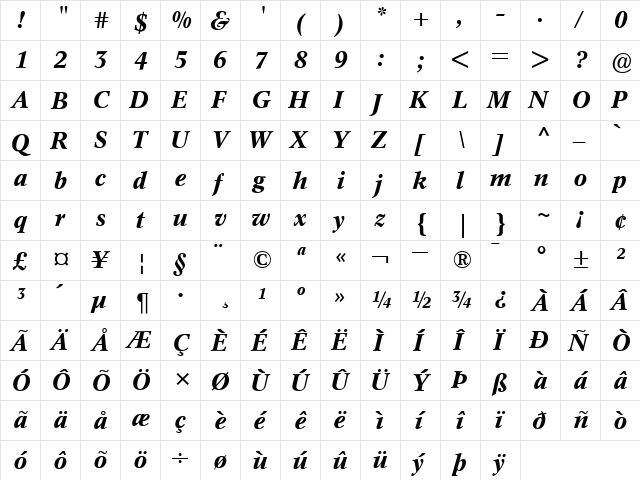
ConcordeBE-Medium MediumItalic
Design Context for ConcordeBE-Medium Typeface
ConcordeBE-Medium is a composed and adaptable typeface that performs quietly and consistently across a wide range of design contexts. The dynamic lean of this cut emphasises speed and emphasis in any layout.
Pro Tip: Use ConcordeBE-Medium for emphasis, pull quotes, and subheadings where its slanted energy can add rhythm to the layout.